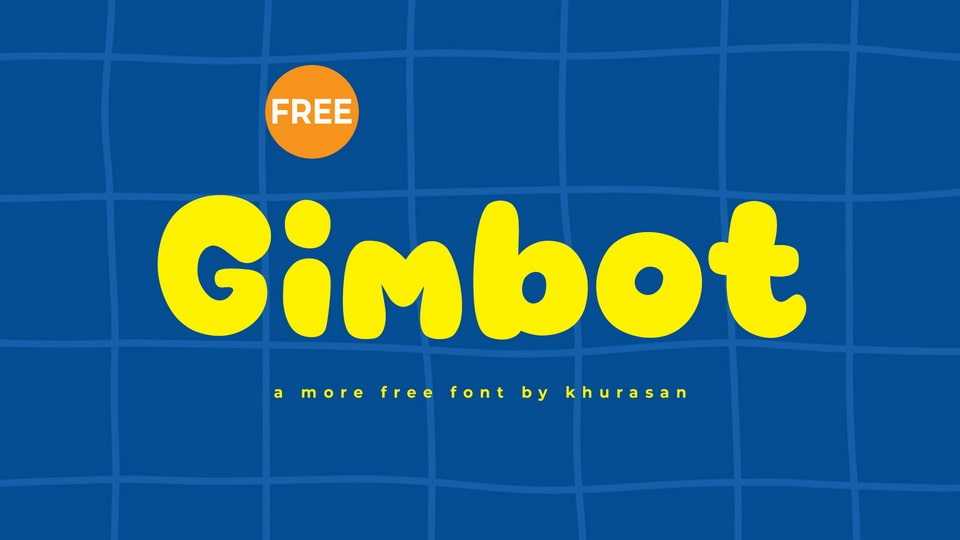
Download Gimbot font, a cheerful and plump display typeface designed to bring a dose of fun to any creative project with its rounded, balloon-like letterforms and smooth curves.